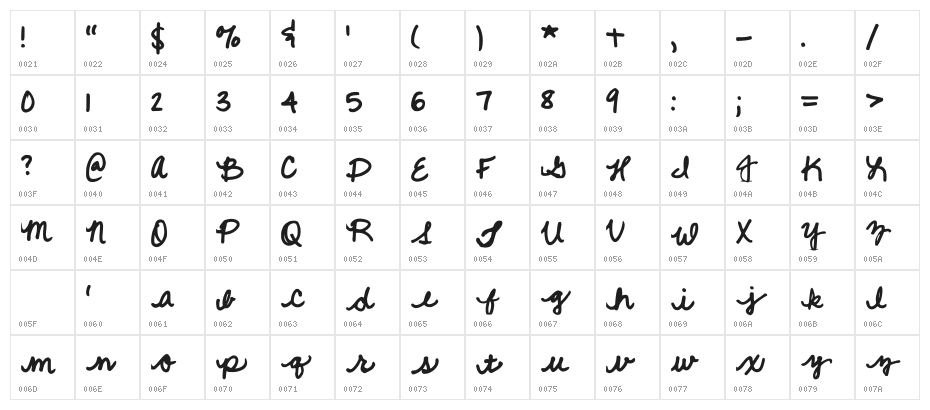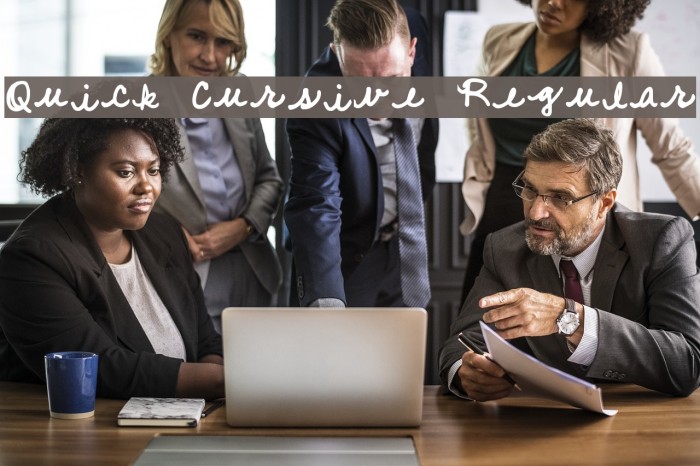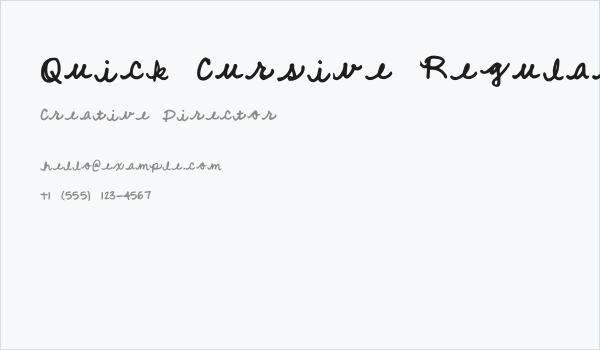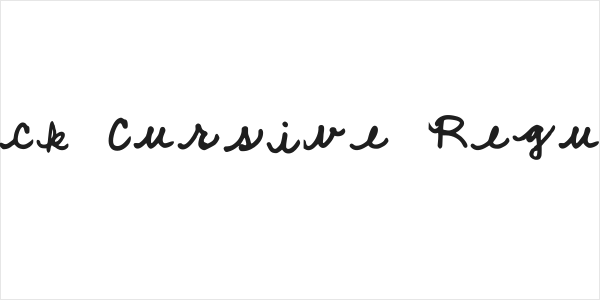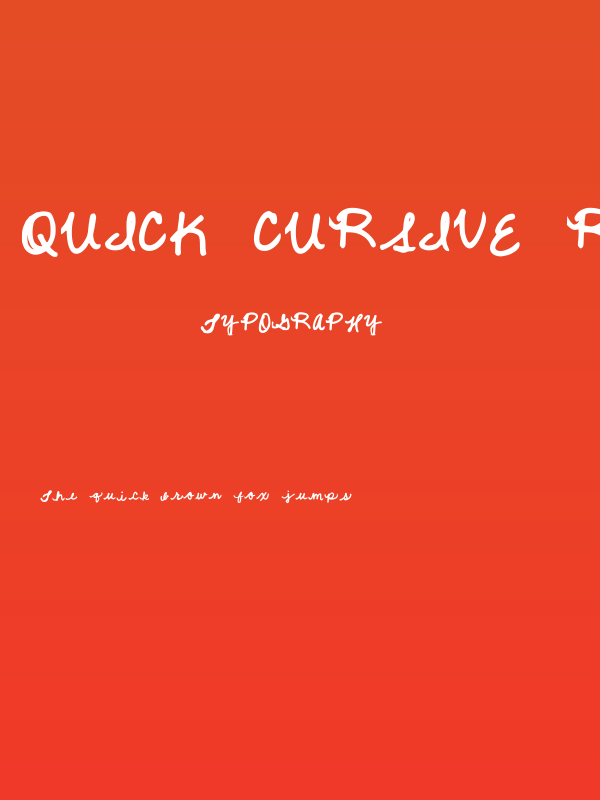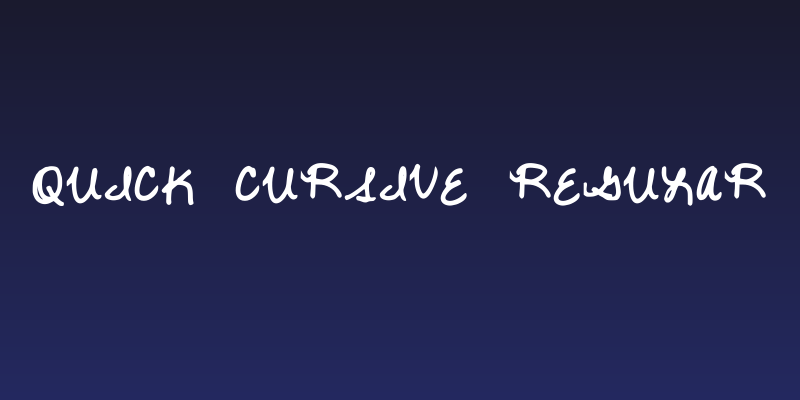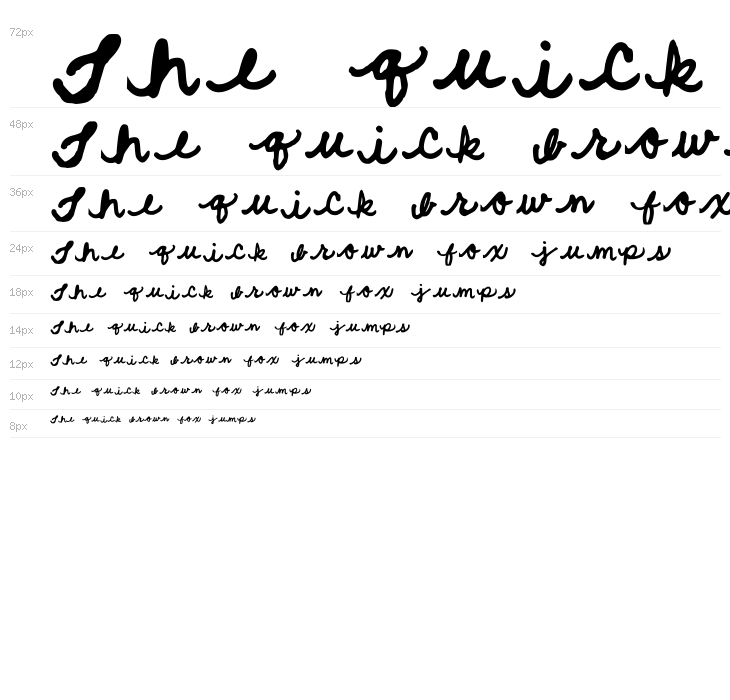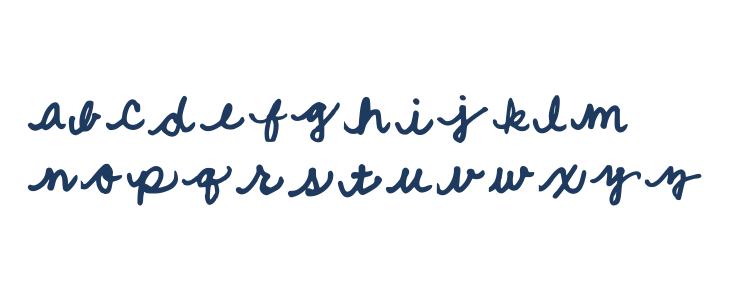
Quick Cursive Regular Font
Quick Cursive Regular Description
This font features a lively and flowing cursive style, characterized by its smooth, continuous strokes that mimic natural handwriting. The uppercase letters are bold and expressive, with a slight slant that adds to the dynamic feel. The lowercase letters maintain a consistent flow, enhancing readability while preserving the handwritten aesthetic. Numbers are well-proportioned and align seamlessly with the overall style. Special characters are crafted with the same fluidity, ensuring a cohesive look across all elements. The font's playful yet elegant design makes it suitable for a variety of creative applications.
Proposed ProjectsIdeal for invitations, greeting cards, personal branding, and creative projects that require a personal touch.